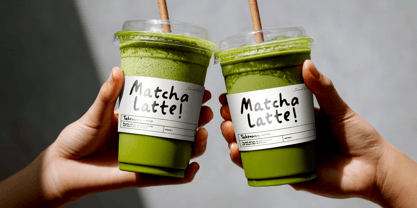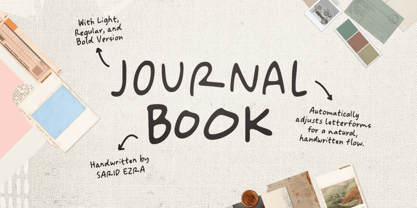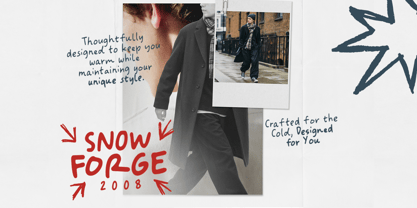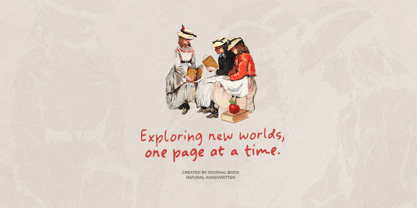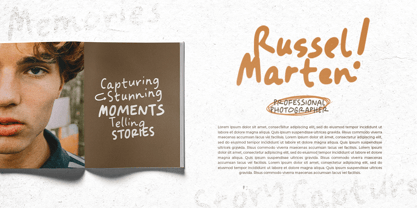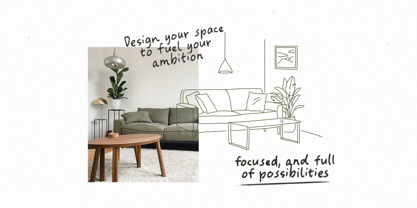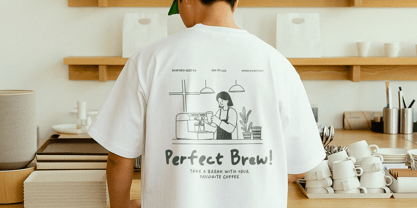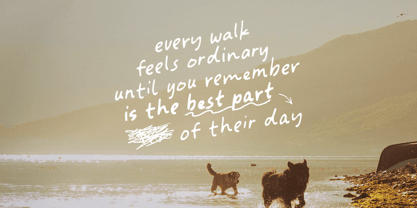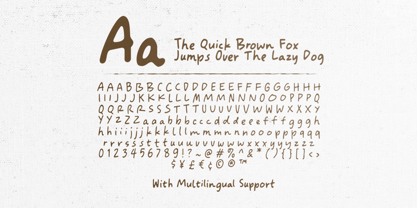
Journal Book
by Sarid Ezra
The Journal Book Font Family was designed by Sarid Ezra and published by Sarid Ezra. Journal Book contains 3 styles and family package options. More about this family
Journal Book is a smooth handwritten font family including light, regular and bold styles. This font is a quotable font that you can use for any purposes such as scrapbook project, branding, logo, or any designs that need human touch vibes. With contextual alternates, the letter will automatically adjust for more natural and handwritten looks. Each letter have 3 alternates. Journal Book also support multi language.